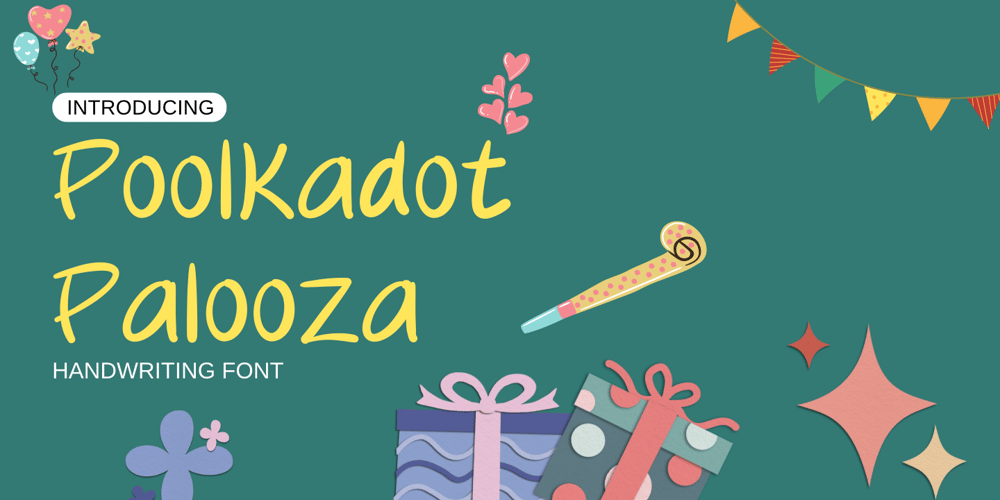
Poolkadot Palooza Font Family was designed by David Perkasya and published by Insan Perkasya. Poolkadot Palooza contains 1 styles and family package options. Introducing “Poolkadot Palooza,” a font that embodies the essence of handcrafted artistry, resulting in a font that’s both natural and uniquely captivating.“Poolkadot Palooza” is your versatile companion for crafting captivating magazine layouts, infusing quotes with a natural and distinctive charm, establishing a memorable brand identity through logos, and addressing a wide range of design needs.If you have any questions, please contact us